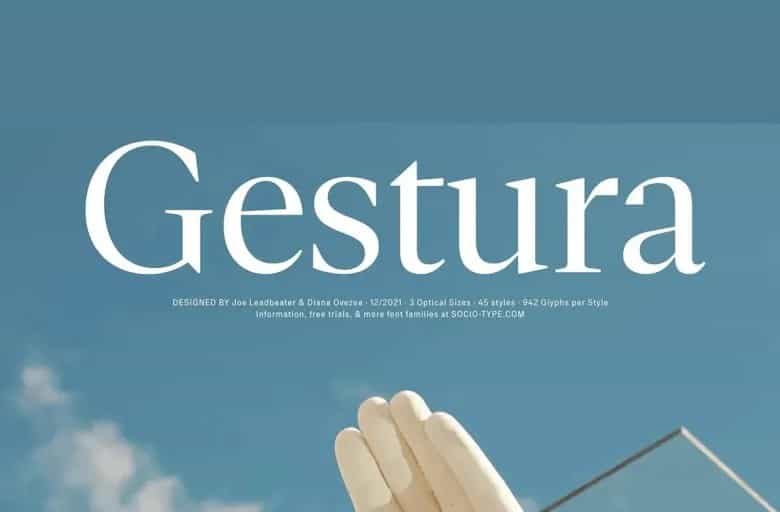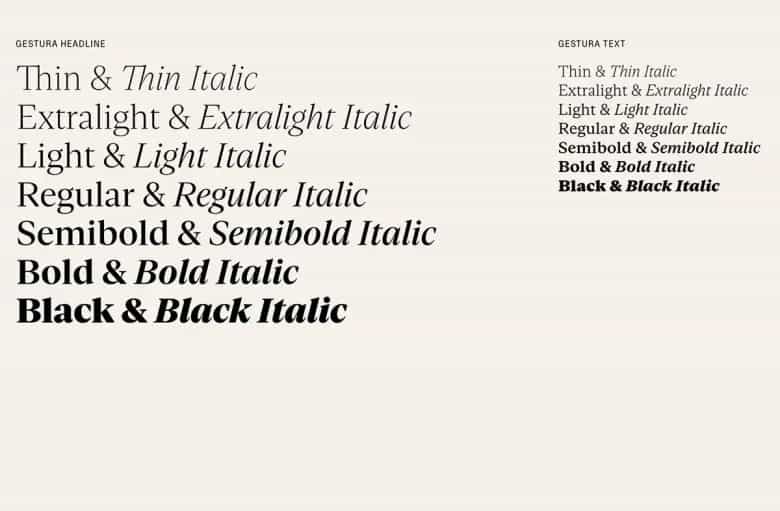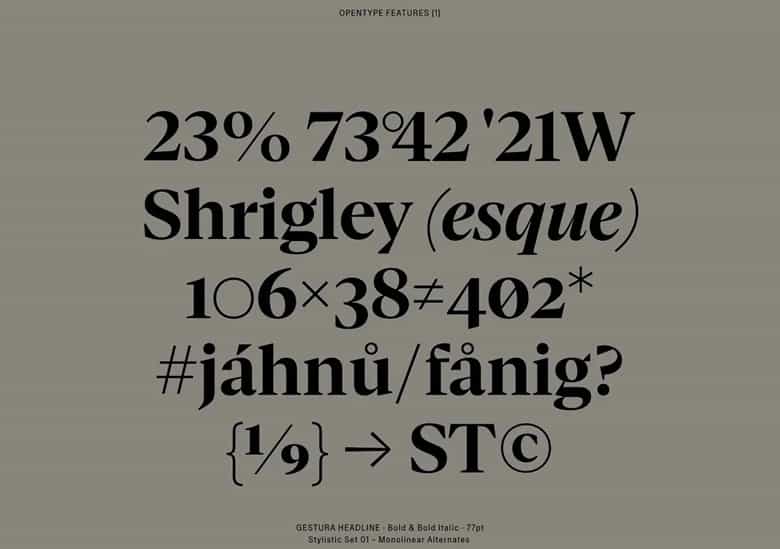
Gestura is an elegant serif font which beautifully reproduces the authentic technique of previous ages. Gestura emerges from the 16th century old style tradition which originally stemmed from Gros Cicero by Robert Granjon but also incorporates revivals created by Matthew Carter with Galliard and Monotype with Plantin.